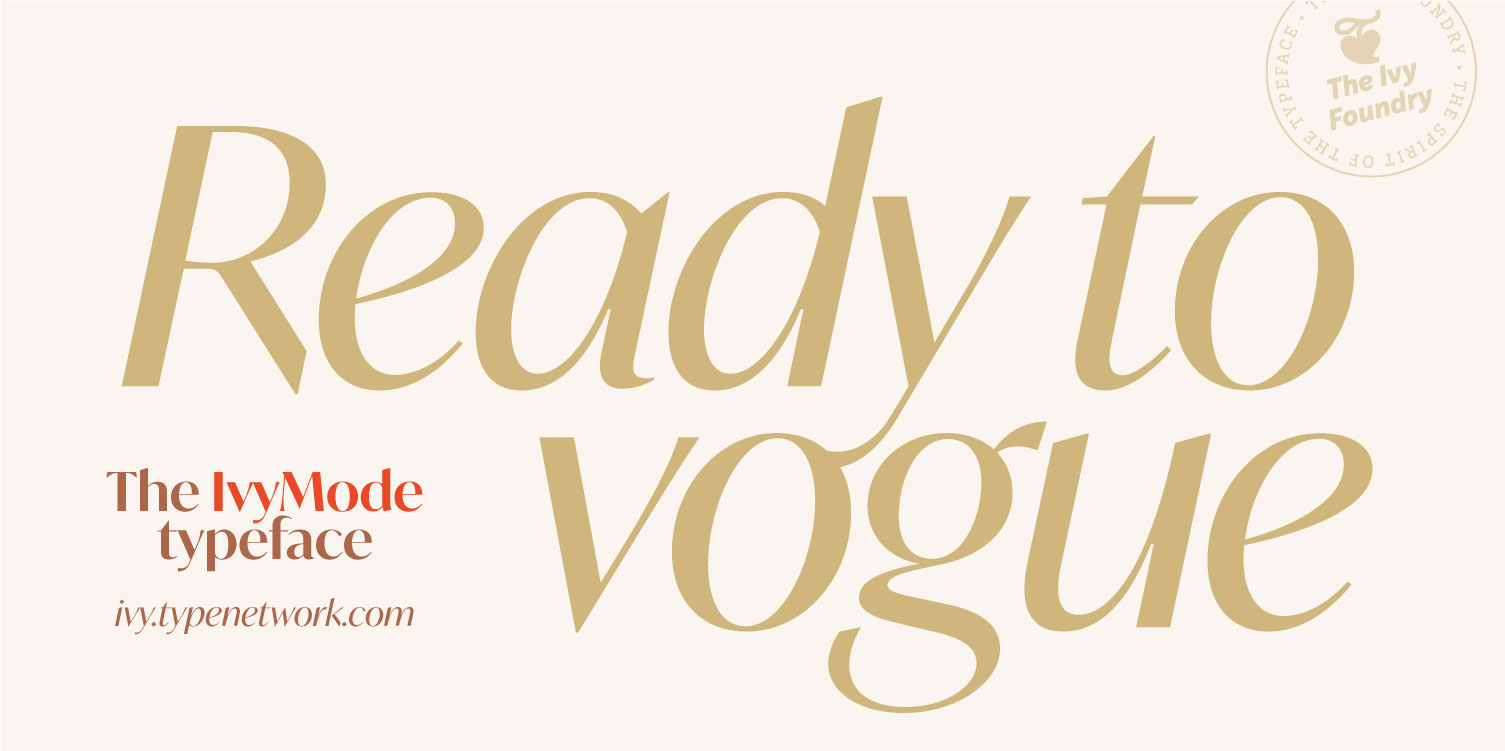
Ivy Mode Font
Ivy Mode Font excels in high-fashion magazines, luxury boutique branding, sophisticated runway show materials, elegant cosmetics packaging, upscale jewelry advertising, premium lifestyle publications, chic interior design studios, exclusive fashion week invitations, refined beauty salons, and contemporary art gallery exhibitions requiring sophisticated fashion-forward aesthetics.
What makes Ivy Mode Font exciting is its exceptional ability to embody the essence of haute couture and contemporary fashion through typography that radiates sophistication, elegance, and cutting-edge style sensibilities. This striking typeface features sleek, refined letterforms with fashion-inspired proportions and elegant curves that perfectly capture the glamorous world of high fashion and luxury lifestyle brands. The font's sophisticated character and fashion authority make it essential for projects seeking to communicate exclusivity, trendsetting vision, and the irresistible allure of contemporary fashion culture.
Ivy Mode Font belongs to the fashion display font family, specifically designed to represent the sophisticated aesthetics of modern fashion and luxury lifestyle industries. This font family typically includes thin, light, regular, medium, and bold weights with stylish italic companions, providing designers with comprehensive typographic tools for creating elegant fashion communications that resonate with style-conscious audiences.
Perfect for fashion designers, luxury brand consultants, magazine art directors, and creative professionals working in fashion industries, this typeface dominates in headers, elegant body text, and sophisticated branding applications. The font's fashion presence enhances runway presentations, luxury retail environments, style publications, and premium lifestyle products where elegance and trendsetting vision are essential.
The meticulously crafted letterforms maintain superior readability while expressing distinctive fashion character across all luxury contexts. From intimate designer label details to massive fashion week installations, Ivy Mode Font performs flawlessly while preserving its sophisticated aesthetic and fashion industry appeal.
Contemporary designers appreciate how this font communicates fashion authority without appearing pretentious, creating designs that feel both industry-professional and genuinely stylish. Its versatile elegance and fashion credibility ensure seamless integration into projects celebrating contemporary style, luxury living, and fashion innovation.